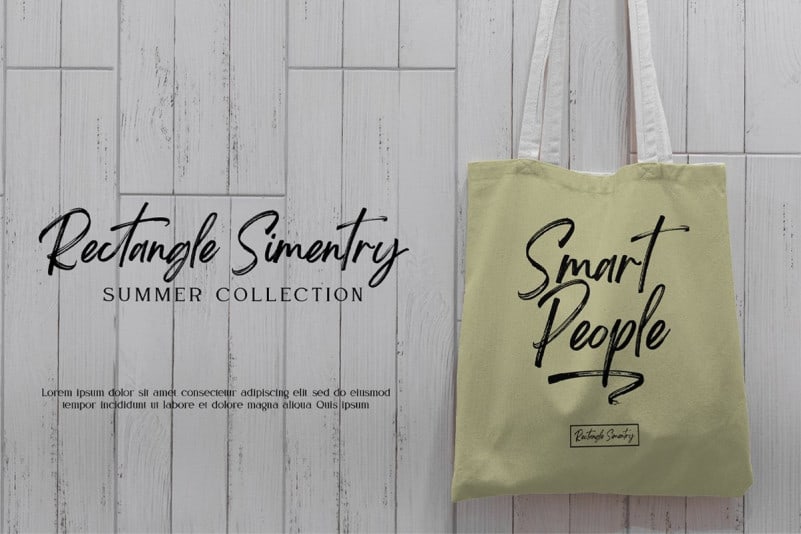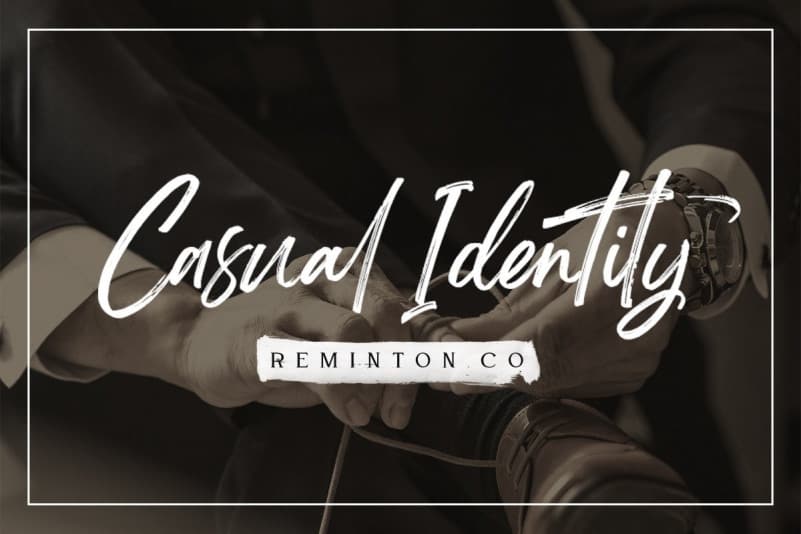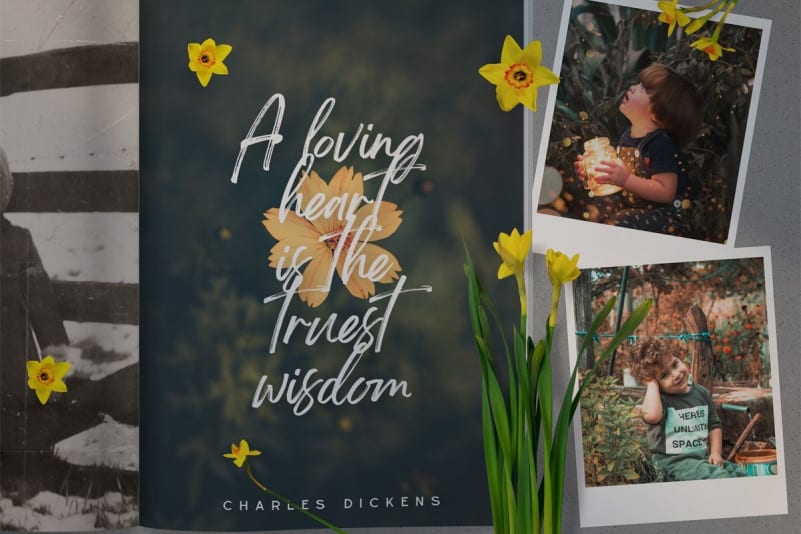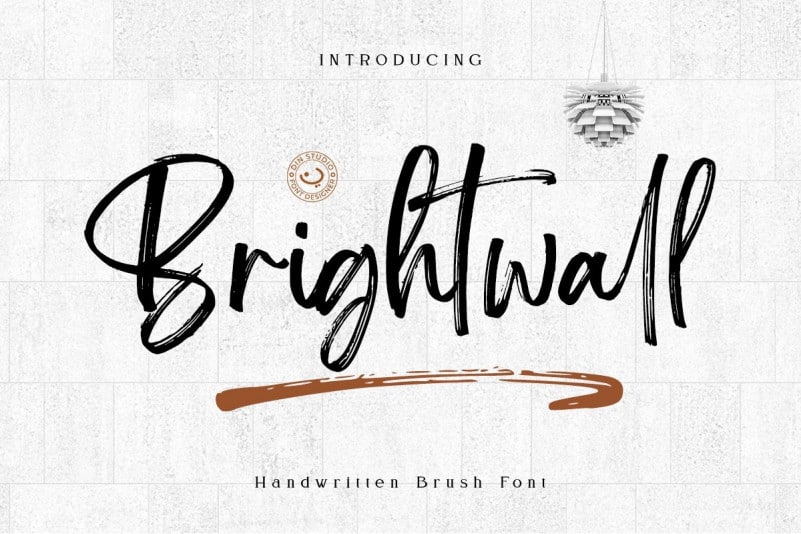
Brightwall Brush Font is a textured brush font, a contemporary approach to design, naturally handmade and with underscores. This font is designed and shared by Din Studio. Made with naturally brush. The texture from the brush font will make your design more beautiful and powerful. TBrightwall Brush Font is suitable for any design like branding, quotes, t-shirt printing and etc.